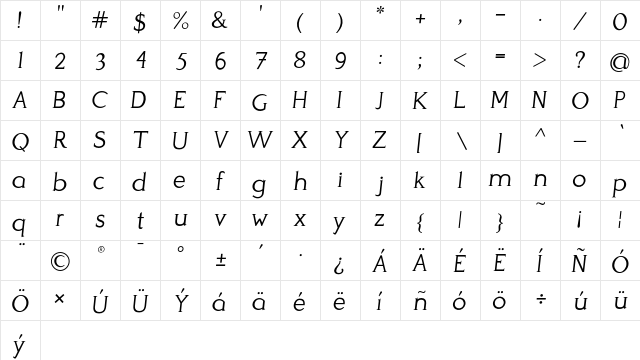
Perspicacious Italic Light
| Designer | Sharvanna Kenny |
Design Context for Perspicacious Italic Typeface
Perspicacious Italic takes a measured approach to typography — its balanced proportions and neutral character make it a reliable workhorse for both digital and print work. The slanted form adds forward momentum and visual energy. Its slender proportions lend an understated elegance to any composition.